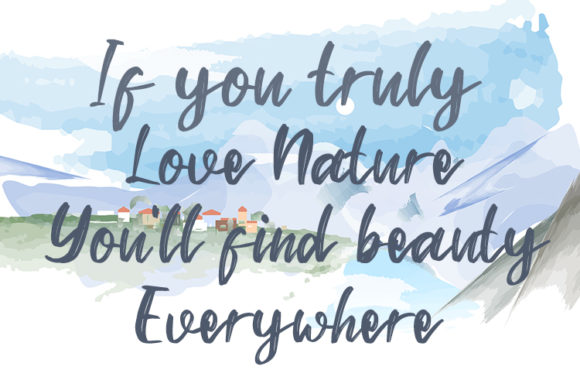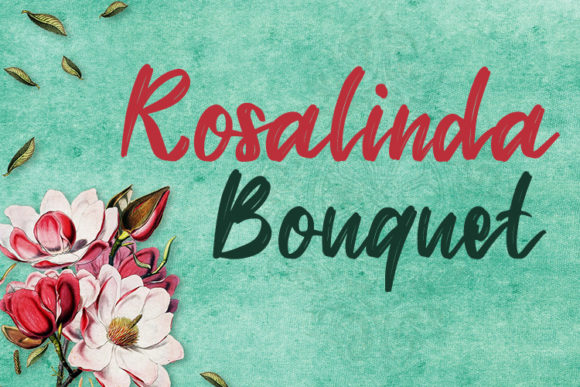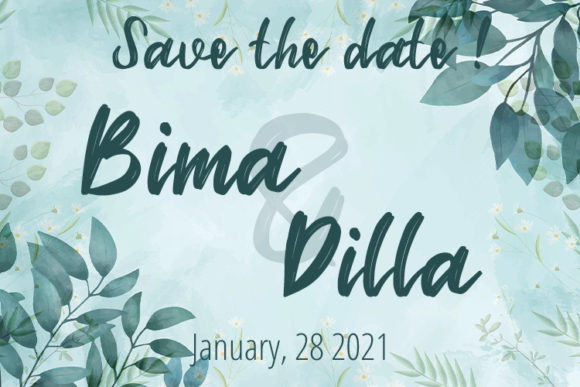
Introduction to Hello Maria Font
Have you ever stared at a blank canvas, a blank sheet of paper, or a blank screen, waiting for inspiration to strike? For designers, this moment is all too familiar. The blank slate can be both exciting and daunting, but with the right design resource, it can be transformed into a masterpiece. That’s where the Hello Maria Font comes in – a beautiful and flowing handwritten font that brings designs to life.
As a valuable addition to any designer’s toolkit, the Hello Maria Font offers a unique and natural style that is incredibly versatile. Whether you’re working on a creative project that requires a high-quality, handwritten touch or simply need a font that can help your design stand out, this font is sure to impress. And the best part? It’s available for free download, making it an accessible and convenient design resource for designers of all levels.
With its transparent background and elegant flair, the Hello Maria Font is a must-have for any designer looking to add a touch of sophistication to their work. So why wait? Dive into the world of creative design with the Hello Maria Font and discover the endless possibilities it has to offer.
Key Features of Hello Maria Font
- High-quality design resource ideal for creative projects requiring a unique and elegant touch.
- Transparent background and versatile design make it suitable for a wide range of applications, from digital art to print materials.
- Available in a single font style, perfect for adding a touch of sophistication to your design without overwhelming the viewer.
- Resolution-independent and scalable, ensuring crisp and clear text regardless of the output size or resolution.
- Designed to work well in both serif and sans-serif environments, providing flexibility for various design styles and creative projects.
Honest Review: Hello Maria Font
I recently had the chance to work with the Hello Maria Font, and I must say it’s been a delightful experience. As a designer, I’m always on the lookout for high-quality fonts that can elevate my creative projects. This font definitely delivers.
- Beautiful, elegant script style that adds a touch of sophistication to any design.
- High-quality font files that ensure crisp and clear rendering, even at larger font sizes.
- Only available in a few font weights, which may limit its versatility for some projects.
- Not ideal for large-scale or high-density text applications, as it may become difficult to read.
Overall, I’m thoroughly impressed with the Hello Maria Font. It’s a fantastic addition to any designer’s toolkit, and I highly recommend it for creative projects that require a touch of elegance. The free download option is a bonus, making it an excellent resource for designers on a budget.
Hello Maria Font
Hello Maria Font is a free design resource available for download. This high-quality font is perfect for creative projects that require a touch of elegance and sophistication.
Tips for Getting the Most Out of Hello Maria Font
1. Use Hello Maria Font on a transparent background for a more modern look.
2. Experiment with different font sizes and styles to add visual interest.
3. Combine Hello Maria Font with other design elements for a unique and creative look.
Hello Maria Font is perfect for:
1. Wedding invitations and stationery.
2. Branding and marketing materials.
3. Social media graphics and posts.